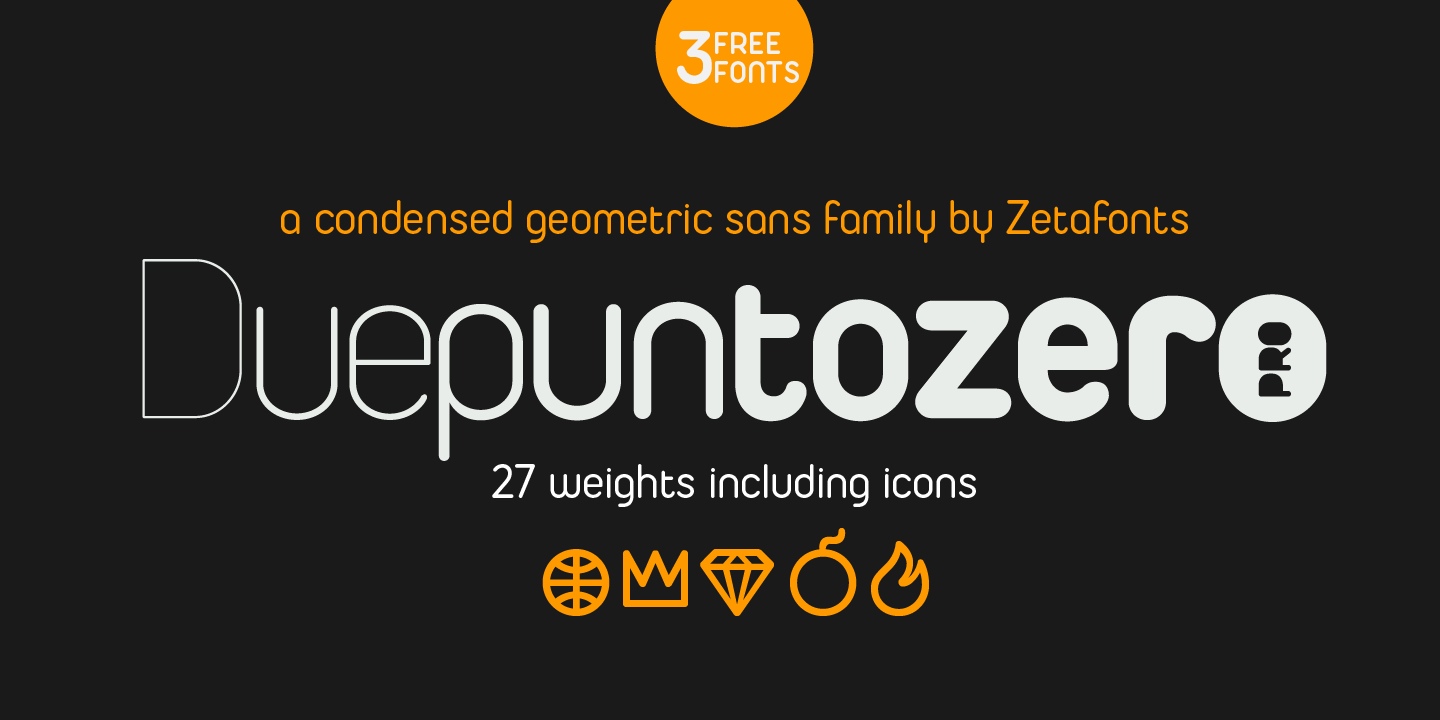
Duepuntozero Pro Font
This contemporary typeface is perfect for digital technology branding, modern software interfaces, tech startup presentations, innovative product launches, professional web design projects, cutting-edge marketing campaigns, corporate digital communications, and next-generation business applications. Duepuntozero Pro Font delivers digital sophistication in applications where technological precision and modern professionalism are essential for connecting with tech-savvy audiences and forward-thinking business clients.
What makes Duepuntozero Pro Font so exciting is its masterful interpretation of digital evolution and contemporary business aesthetics through refined typography. The font features precisely engineered letterforms with clean geometric characteristics that suggest technological advancement and professional reliability. Each character has been meticulously crafted to ensure optimal screen rendering while maintaining distinctive personality that sets brands apart in competitive digital markets. The typeface's professional digital character creates immediate associations with innovation and technical expertise, making it perfect for companies positioning themselves as industry leaders in technology and digital transformation.
The Duepuntozero Pro Font includes comprehensive weight variations: Thin, Light, Regular, Medium, Semi-Bold, Bold, and Black versions. This professional collection provides designers with complete typographic flexibility to create sophisticated digital hierarchies and maintain consistent brand presentation across complex technology applications. Each weight preserves the font's core characteristics of precision and modernity while offering distinct emphasis levels for various digital communication needs and professional design contexts.
Whether you're developing technology company identities, creating digital product interfaces, or designing professional business presentations, Duepuntozero Pro Font Free Download delivers the contemporary aesthetic that builds credibility with modern business audiences and technology professionals. Its digital sophistication makes it particularly suitable for software companies, digital agencies, tech consultancies, and innovation-driven enterprises. The font's professional presence ensures consistent performance across all digital platforms and business applications, while its modern character communicates expertise and reliability to discerning professional clients.
This professional digital typeface represents the gold standard for designers who understand the critical importance of contemporary typography in effective technology and business communication strategies.